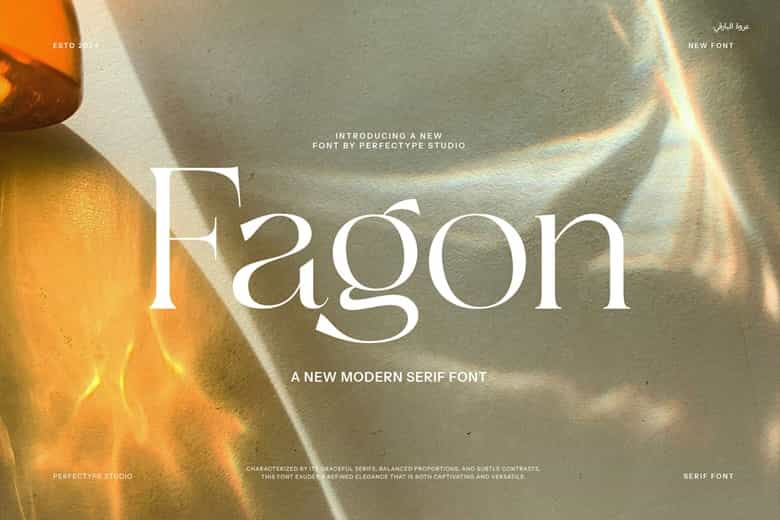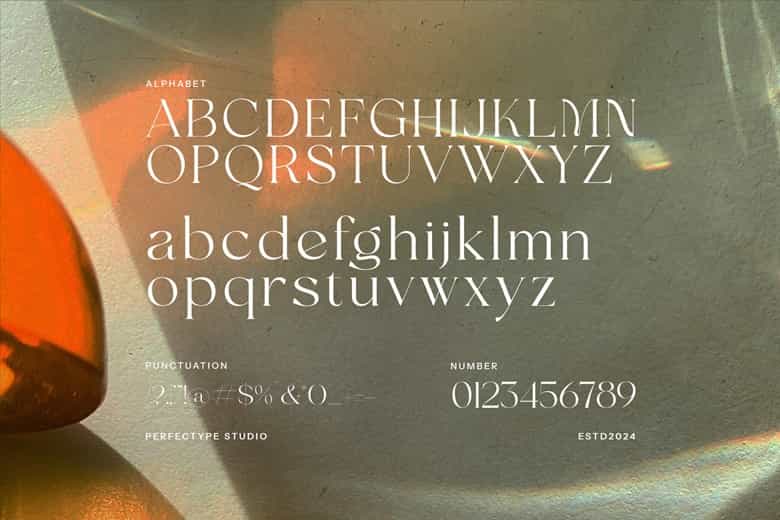
Fagon is a very beautiful serif typeface and would suit all branding and logo work This type of serif font is very classy and professional and would suit all of your design requirements. This font has many pretty and special ligature and alternate glyphs.